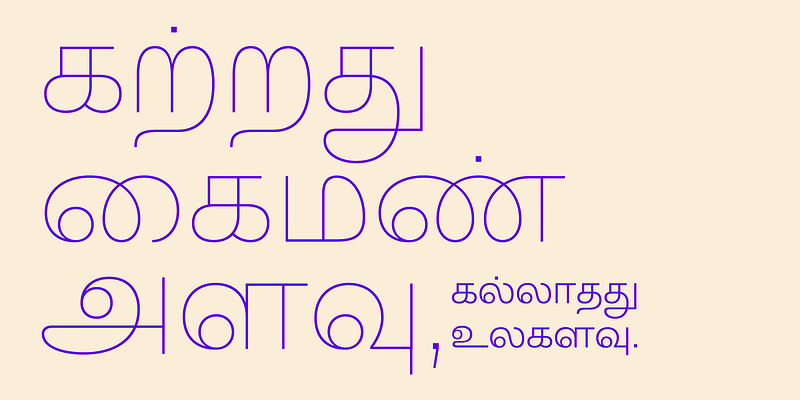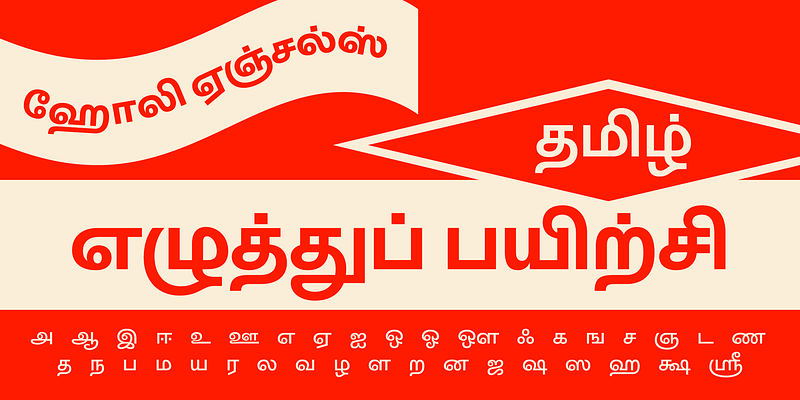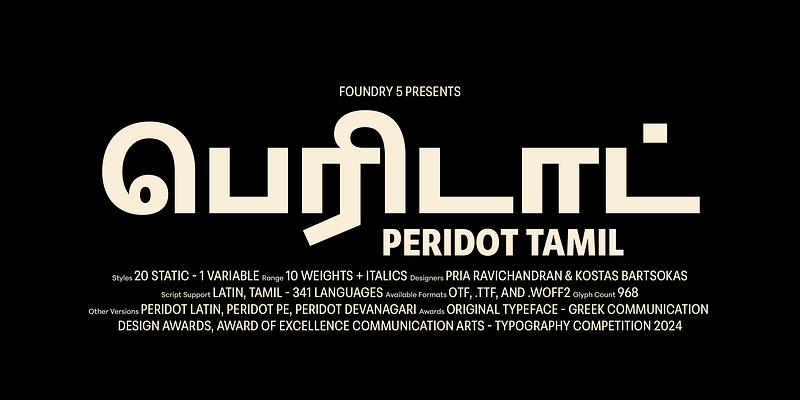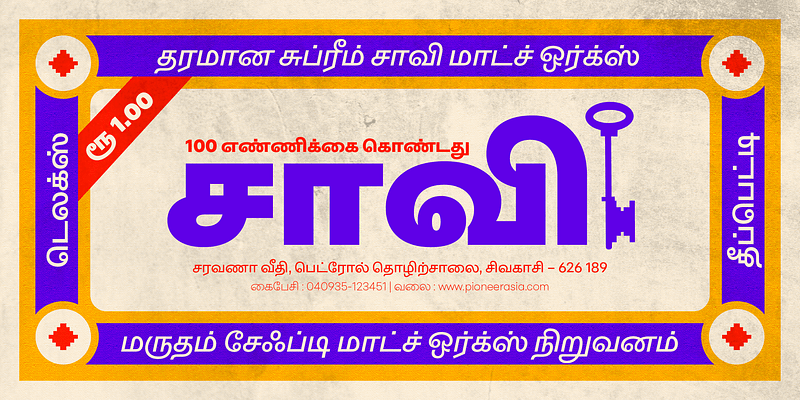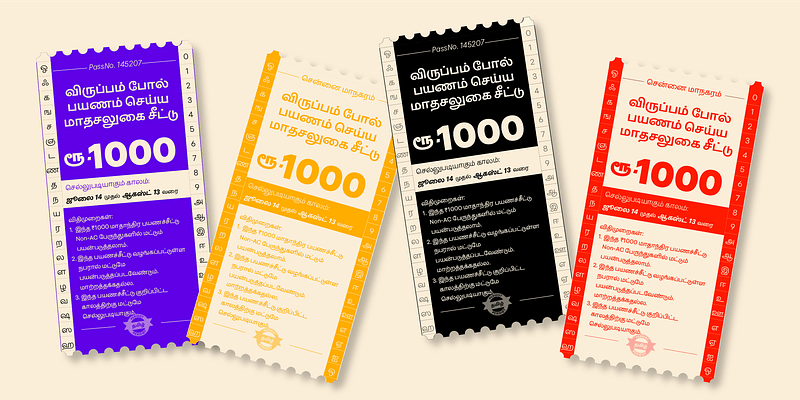
Foundry5
Foundry5 is a contemporary type foundry established in 2021, creating high-quality, multi-script typefaces that balance cultural authenticity with modern functionality. Believing that every script holds unique design potential, the foundry approaches Latin, Greek, Cyrillic, Arabic, Devanagari, and beyond with equal care, producing work that is both visually distinctive and technically refined. Its team brings deep academic rigor and lived cultural perspectives to their practice, ensuring that the scripts they design are represented with both expertise and authenticity.
The library includes versatile releases such as Peridot, a multi-width sans-serif spanning four global scripts; Jali, a humanist design crafted for seamless readability across Arabic, Latin, and Greek; and Evert, a modern grotesque that blends expressive detailing with extensive stylistic features—with additional scripts and families currently in development. Foundry5’s work has been recognized internationally with numerous awards, including honors from the Type Directors Club, Granshan, Ebge, and Communication Design.